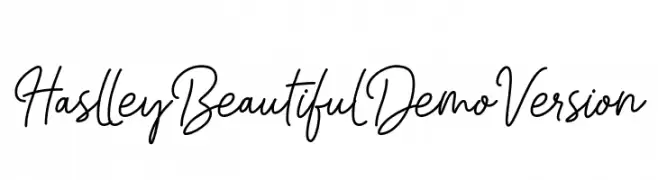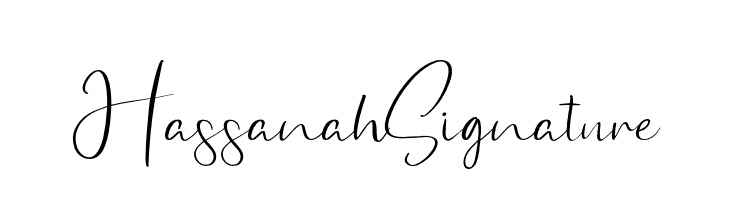
A bold, distressed font with a grunge, spray-painted look.
Automotive-themed pictorial display font using car parts and tools for each character.
A bold, distressed font with a rugged, vintage texture.
A bold, distressed display font with a rugged, grunge aesthetic.
A bold, distressed font with a gritty, vintage appearance.
A bold, outlined font with a playful and dynamic style.
A playful, hand-drawn font with irregular, whimsical characters.
A playful, rounded font with a hand-drawn feel, perfect for casual designs.
A bold, handwritten font with an energetic and expressive style.
A bold, expressive handwritten font with dynamic strokes.
A bold, distressed font with a rugged, vintage appearance.
A bold, hand-drawn font with rough, energetic strokes.
A lively, handwritten font with dynamic strokes and playful loops.
A bold, distressed font with a vintage, textured appearance.
A whimsical, illustrative font with fish-shaped characters.
A bold, playful font with rounded edges and a chunky appearance.
A playful, bold font with rounded, thick strokes and a comic book style.
A playful, bold font with rounded, thick strokes and a whimsical style.
A bold, playful font with rounded edges and a chunky appearance.
A playful, bold, hand-drawn font with thick strokes and a whimsical style.
A playful, hand-drawn font with bold, rounded characters.
A bold, playful font with rounded, cartoonish characters.
A bold, playful font with rounded, hand-drawn characteristics.
A bold, playful font with a cartoonish style and unique heart-shaped details.
Playful, bold, hand-drawn font.
A bold, rounded font with a playful and whimsical style.
A bold, playful font with rounded edges and a bubbly, retro style.
An elegant, flowing script font with ornate uppercase and smooth lowercase letters.
An elegant, cursive font with flowing, interconnected letters and ornate uppercase characters.